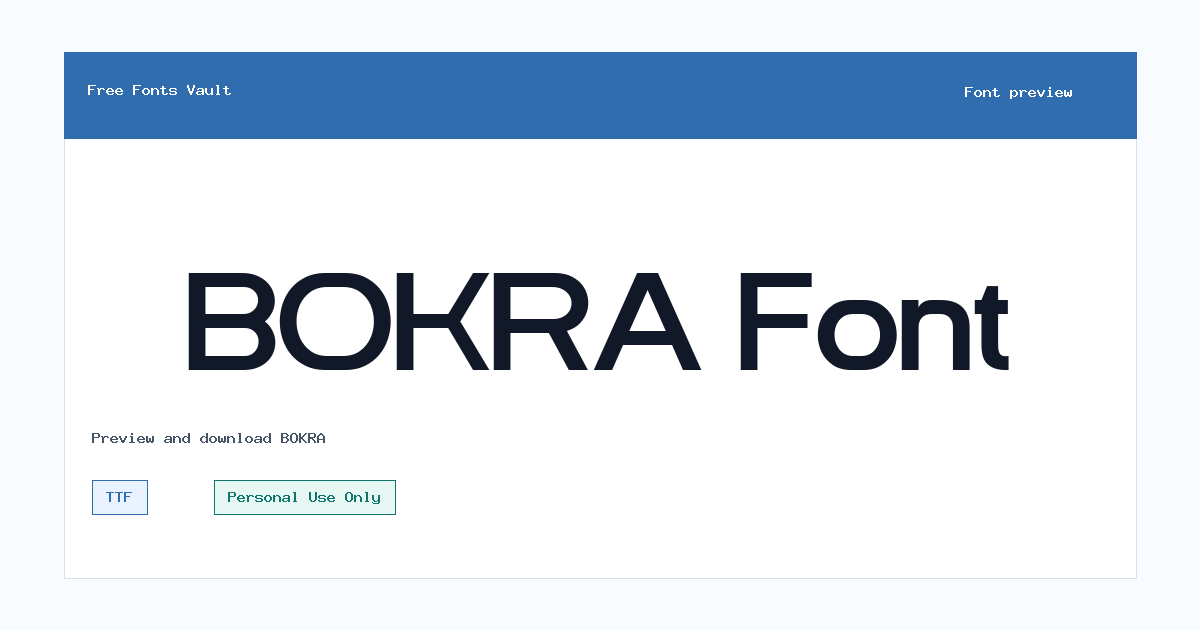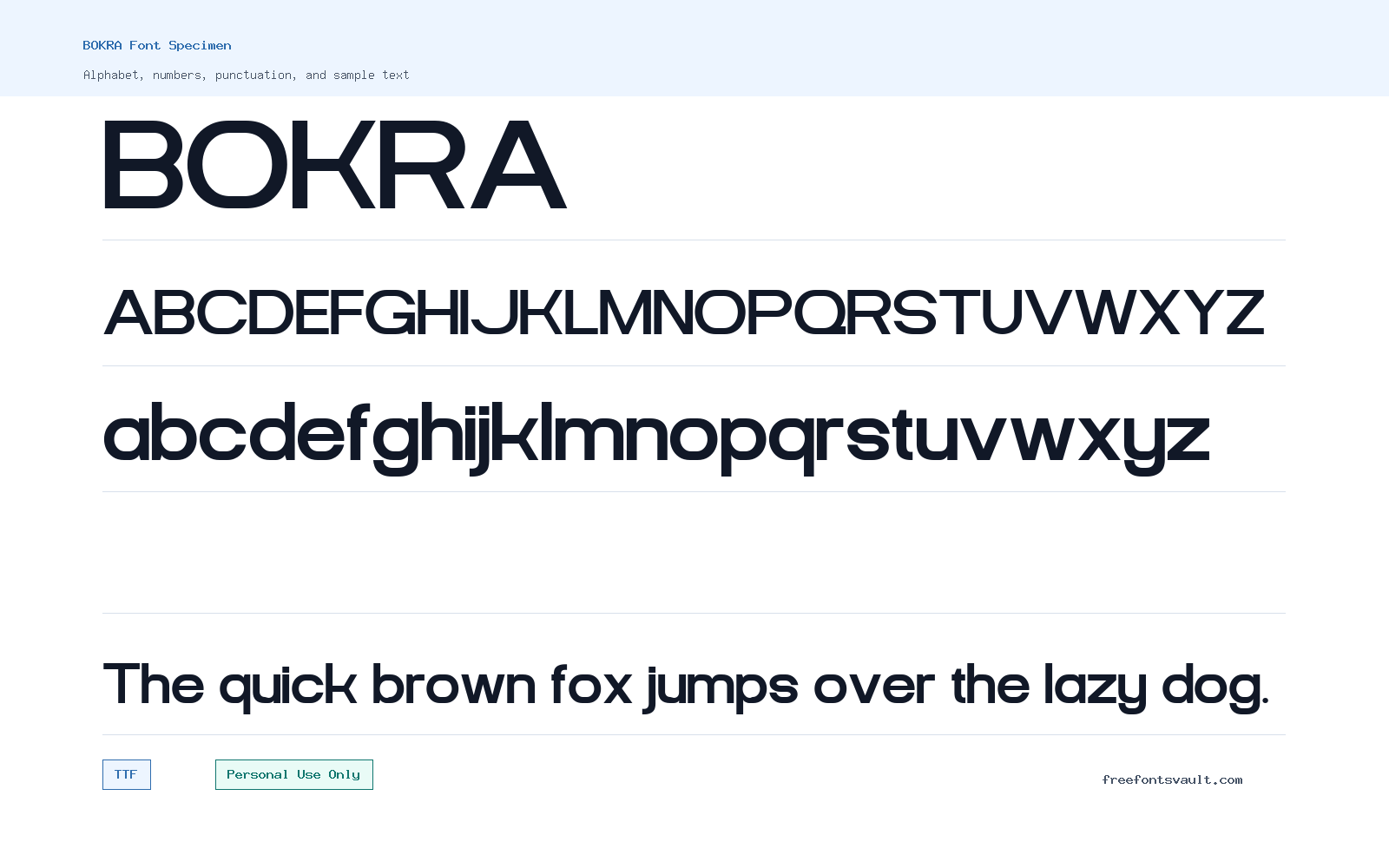
BOKRA
BOKRA font.
About BOKRA Font
BOKRA is presented as a sans serif font, with a single Regular style available in TTF format. Because only one weight is included, it is best treated as a focused display or headline choice rather than a full text family. Use the preview box to test the exact words you plan to use, especially if your design depends on tight spacing, clean word shapes, or a strong title lockup. Short samples such as brand names, poster titles, social headers, packaging text, and navigation labels will show the character of the font more clearly than long paragraphs.
For logo work and poster design, start with uppercase and title-case tests, then compare how the font handles numbers, punctuation, and repeated letters. If you are making a web mockup, test BOKRA at the size it will actually appear on the page. A font that looks strong in a large hero heading may feel less clear in captions, buttons, or body copy. Since the available file is a regular 400-weight TTF, pair it with a flexible text font for longer reading. A neutral sans serif or a simple serif can help keep layouts balanced while allowing BOKRA to carry the main visual emphasis.
- Logo drafts, brand mockups, poster titles, and short display text.
- Website hero headings, social media graphics, packaging concepts, and presentation covers.
Use BOKRA where the text is short and meant to stand out. Test real words in the preview before downloading, because display fonts can change character when used with different letter combinations. For readable layouts, use BOKRA for the main title or logo-style text, then choose a calmer companion font for paragraphs, captions, menus, and supporting information. If you plan to use it in a commercial logo, paid campaign, merchandise design, app, website, or client presentation, clear the license first.
Is BOKRA good for body text?
It is better to test BOKRA as a display font for short text first. For long paragraphs, pair it with a more neutral reading font unless your preview tests show strong readability at smaller sizes.